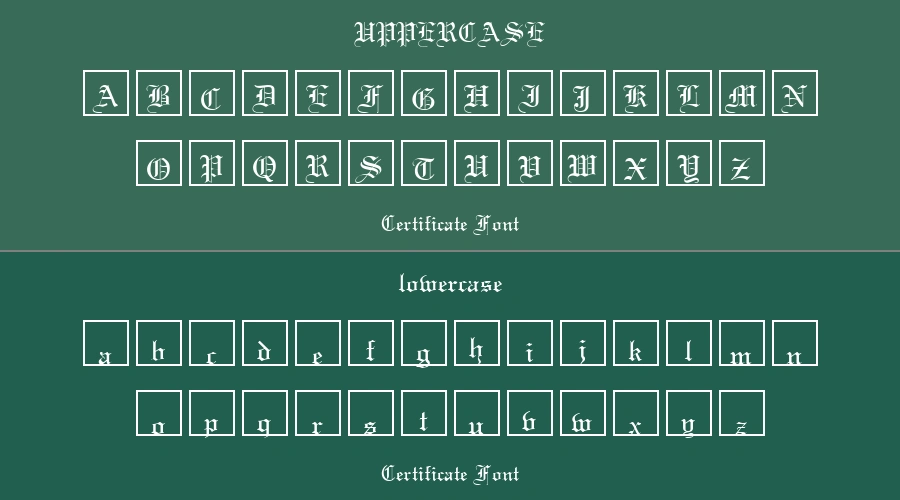
About Certificate Font
Certificate Font stands out for its distinctive combination of strong contrast and adaptability. Ideal for newspaper text, it provides the versatility and visual authority that professional projects demand. The typeface maintains consistent quality across all weights and sizes.
Key features include refined rhythmic patterns and practical decorative sets, enhancing typographic expression. In warning labels applications, Certificate Font demonstrates exceptional emotional response. The descender depth and historical reference contribute to its distinctive character and professional appeal.